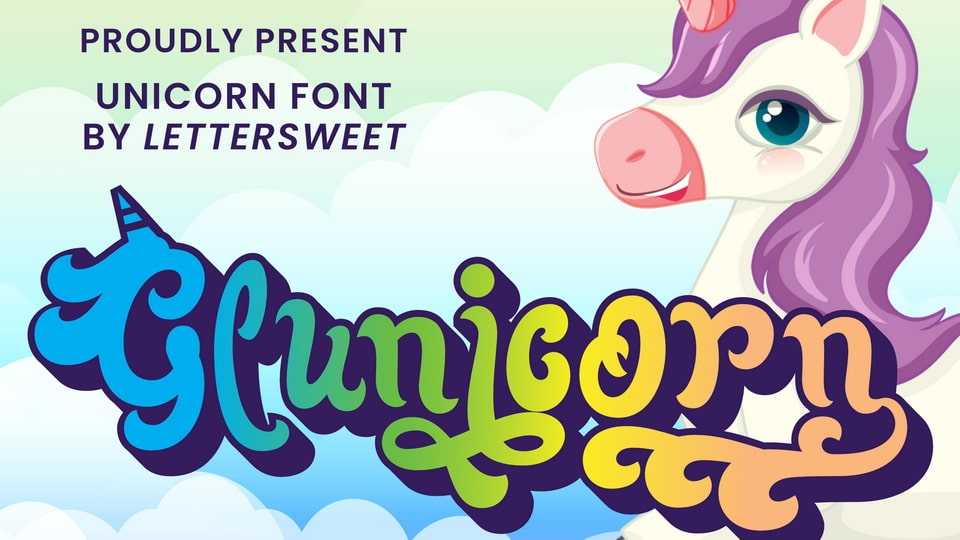
Download Glunicorn font, a fun, jolly and incredibly charming display typeface. It embodies playfulness and authenticity and is the perfect choice for any children activity or school project.